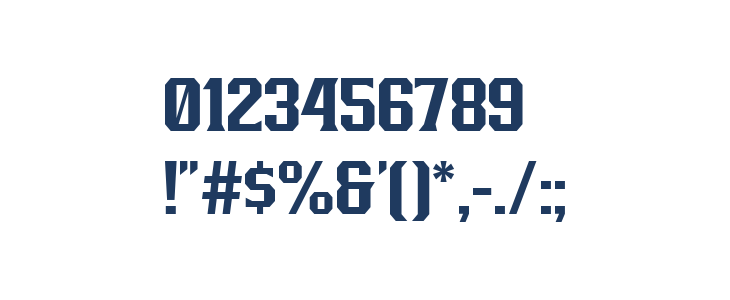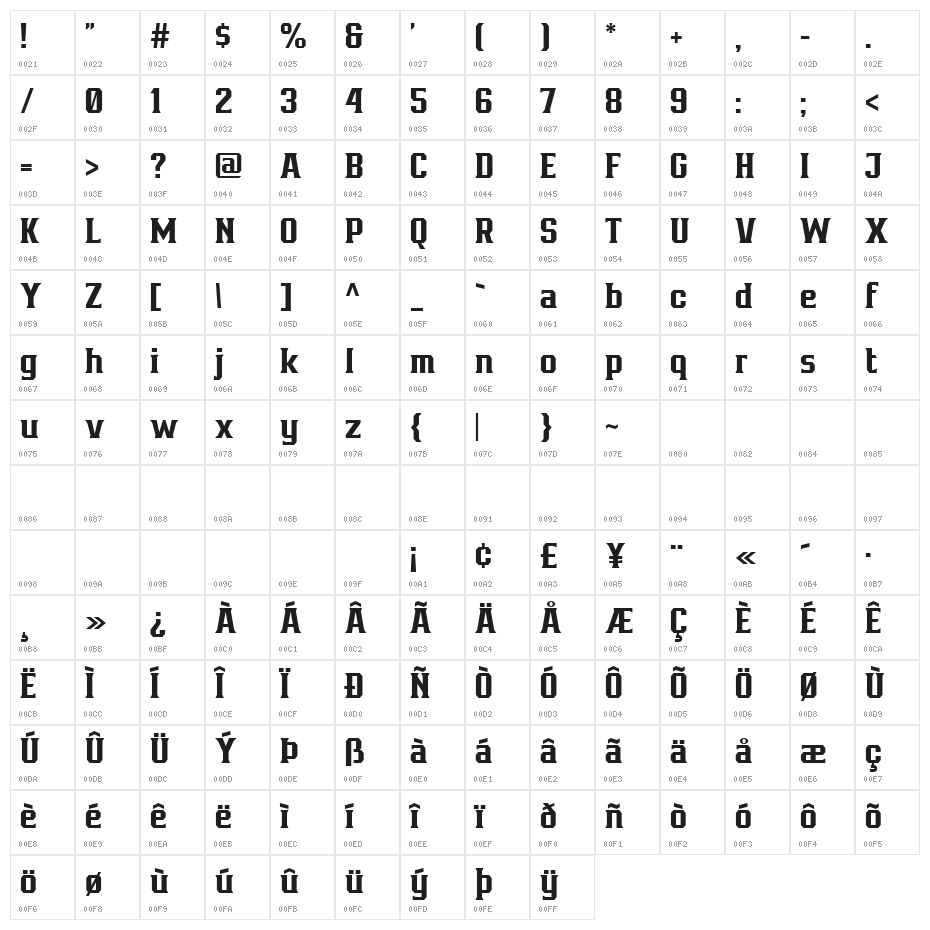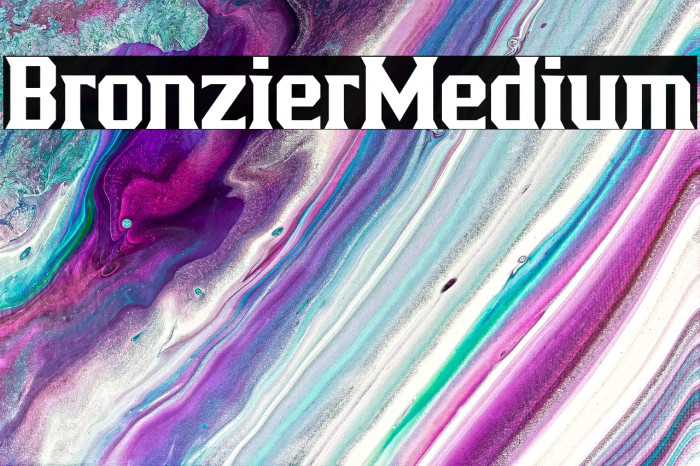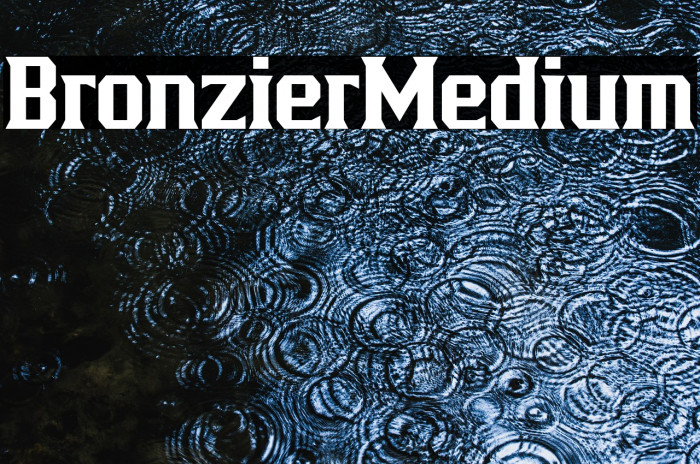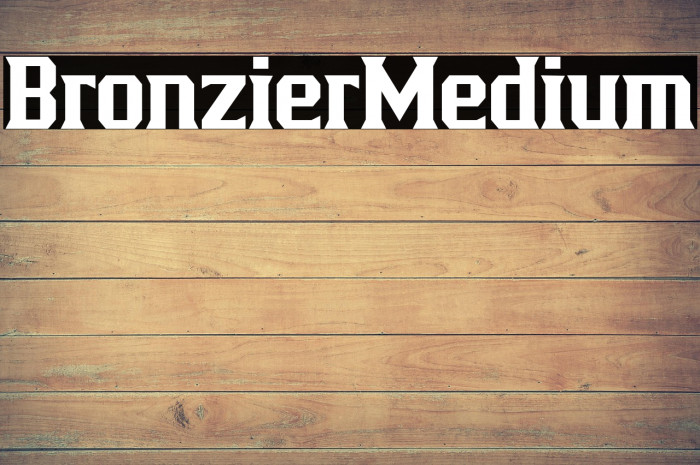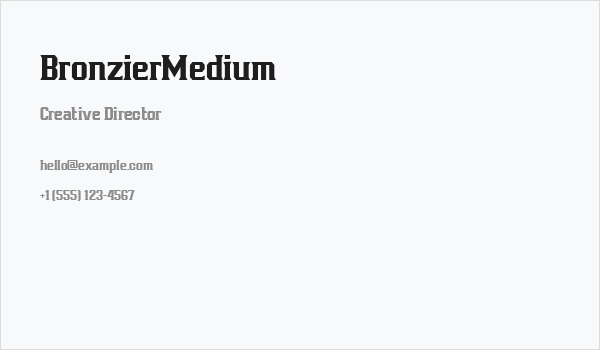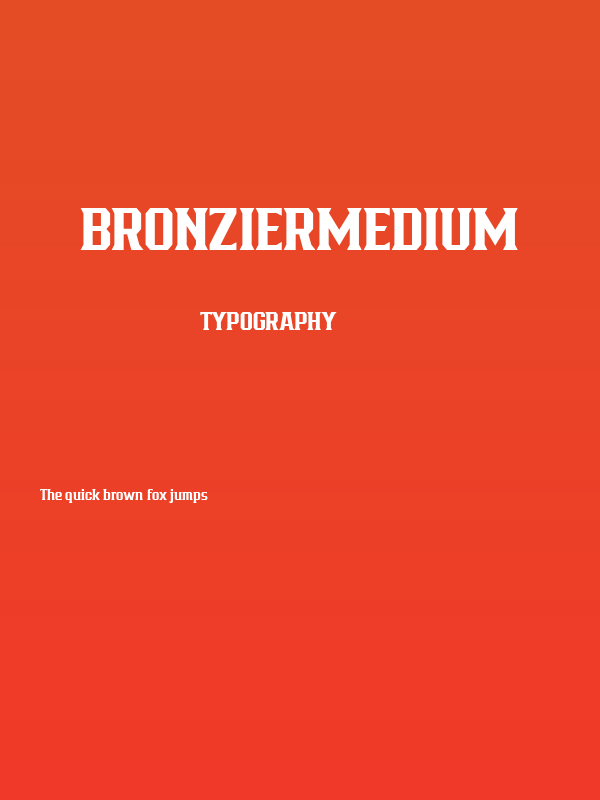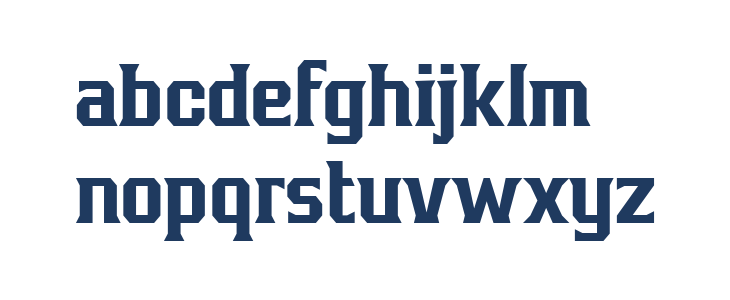
BronzierMedium Font
BronzierMedium Description
This font exhibits a bold and striking presence, characterized by its sharp, angular serifs and strong vertical lines. The uppercase letters are particularly commanding, with a geometric influence that lends a sense of authority and power. The lowercase letters maintain this robust style, ensuring consistency across the typeface. Numbers and special characters are designed with the same attention to detail, making them highly legible and visually impactful. The overall design is reminiscent of vintage signage, yet it carries a modern twist that makes it suitable for contemporary use. Its boldness and unique style make it ideal for projects that require a strong visual statement.
| Overall Style | Vintage, Modern |
| Proposed Projects | Perfect for branding, poster design, headlines, and any project needing a strong, impactful typeface. |